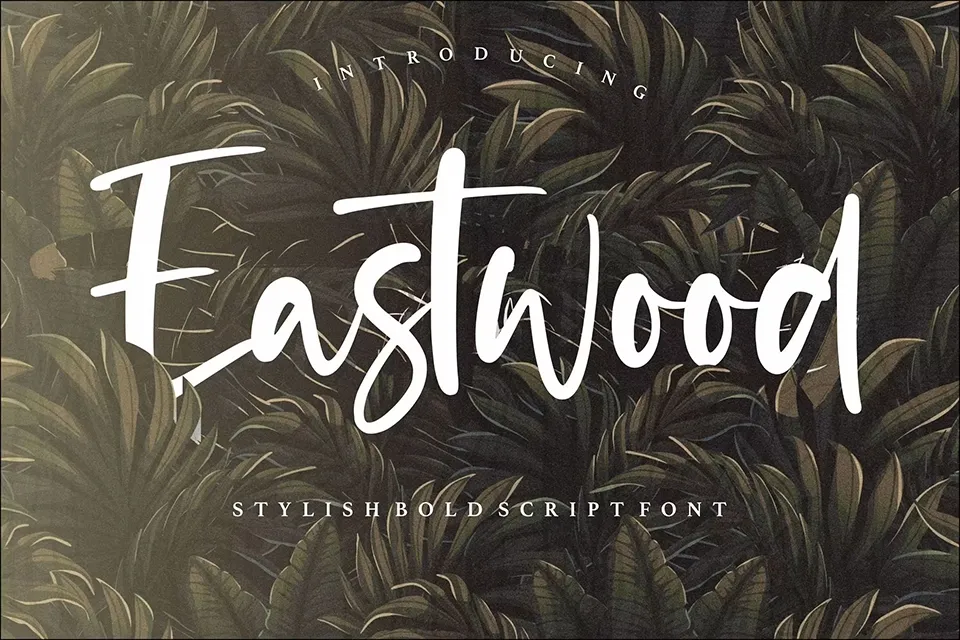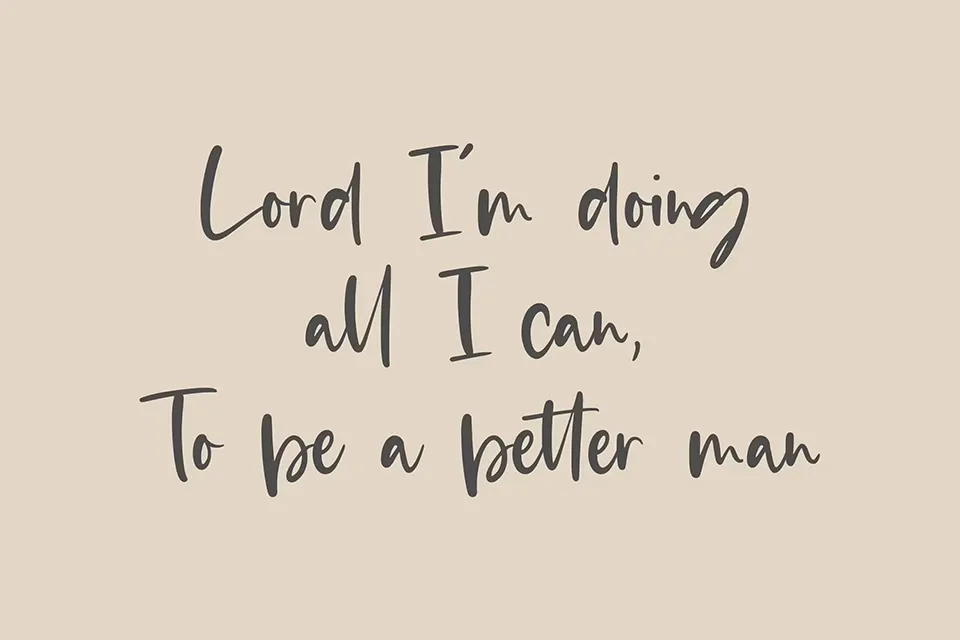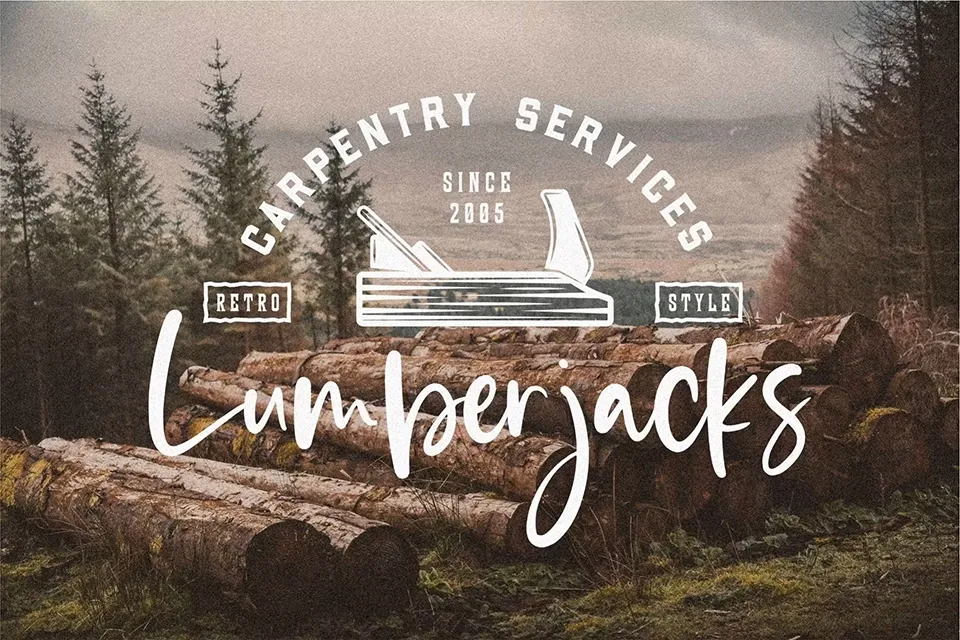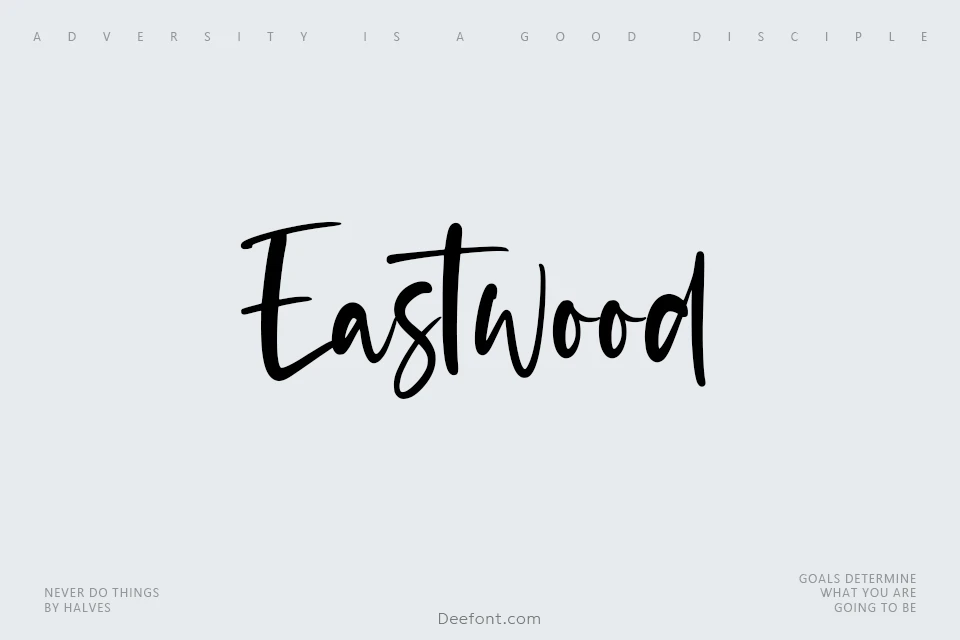
Eastwood Font
Eastwood Font is a stylish, bold script typeface that brings a handwritten, elegant touch to your designs. Perfect for wedding invitations, thank you cards, product packaging, branding projects, magazine layouts, social media graphics, and any project that requires a modern handwritten flair. Its bold, flowing lines and informal yet sophisticated vibe make it ideal for both personal and professional creative work.